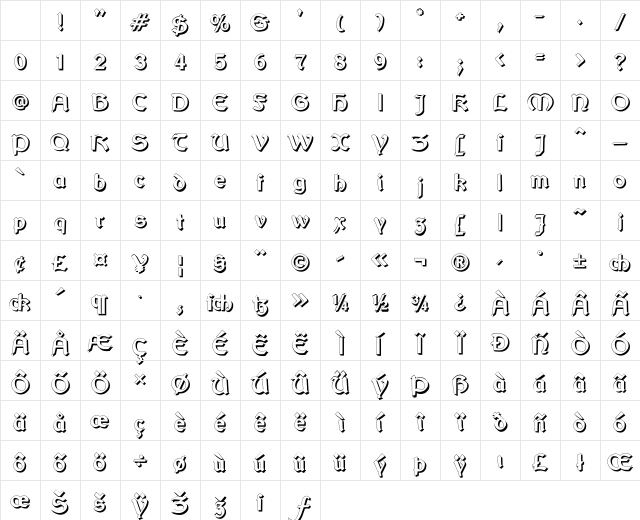
Complete Bretagne Gaelic Shadow Regular glyph index. Displaying only characters natively supported by Bretagne Gaelic Shadow Regular font.
Bretagne Gaelic Shadow is built around its visual character rather than neutral utility - its distinctive forms are designed to make an impression at display sizes.
Font Pairing: Pair with a clean neutral sans-serif for body copy to let Bretagne Gaelic Shadow's character lead without overwhelming the composition.
Pro Tip: Use Bretagne Gaelic Shadow exclusively at display sizes - it was designed to be seen, not read at length. Let a neutral companion handle body copy.